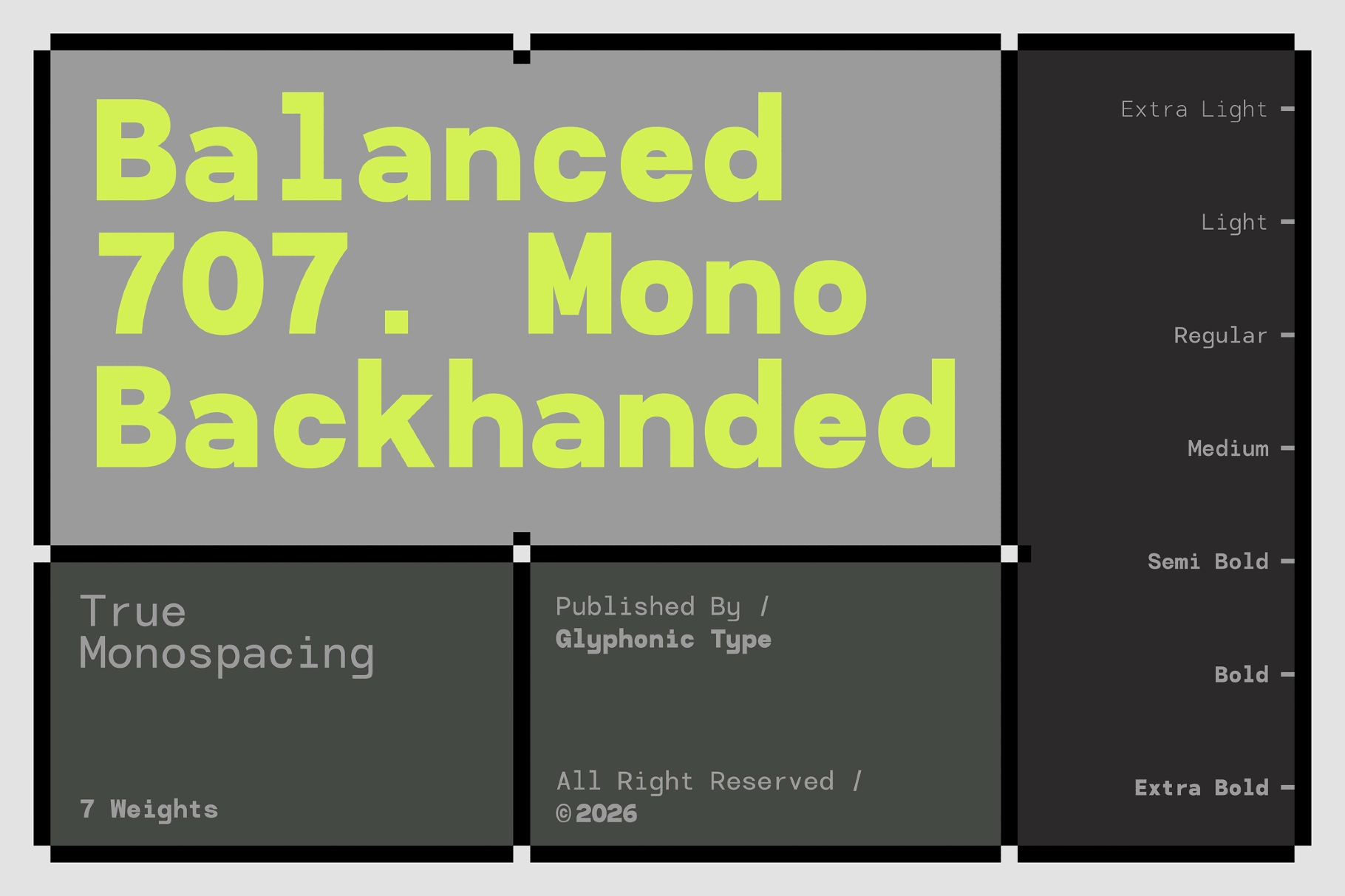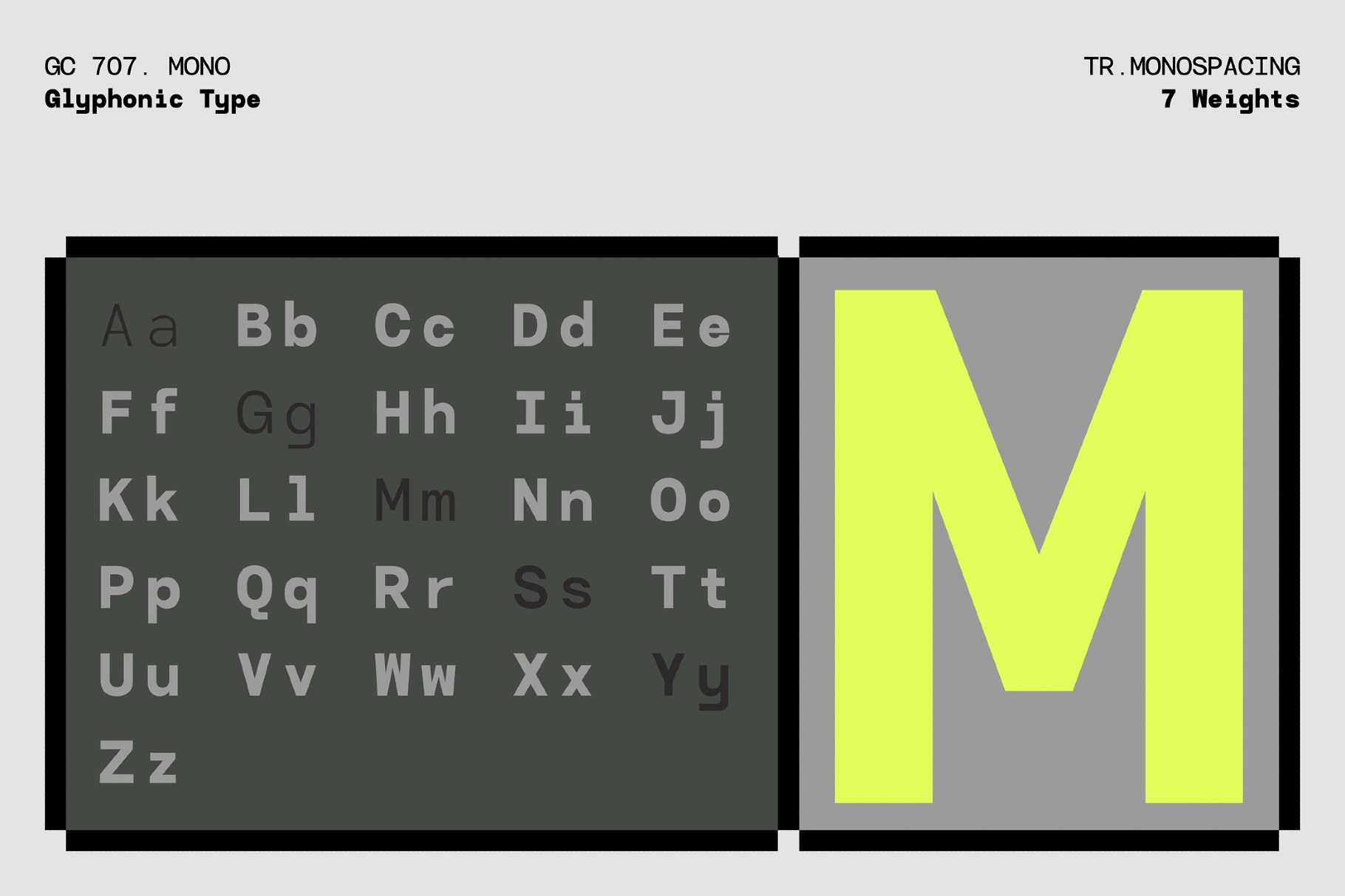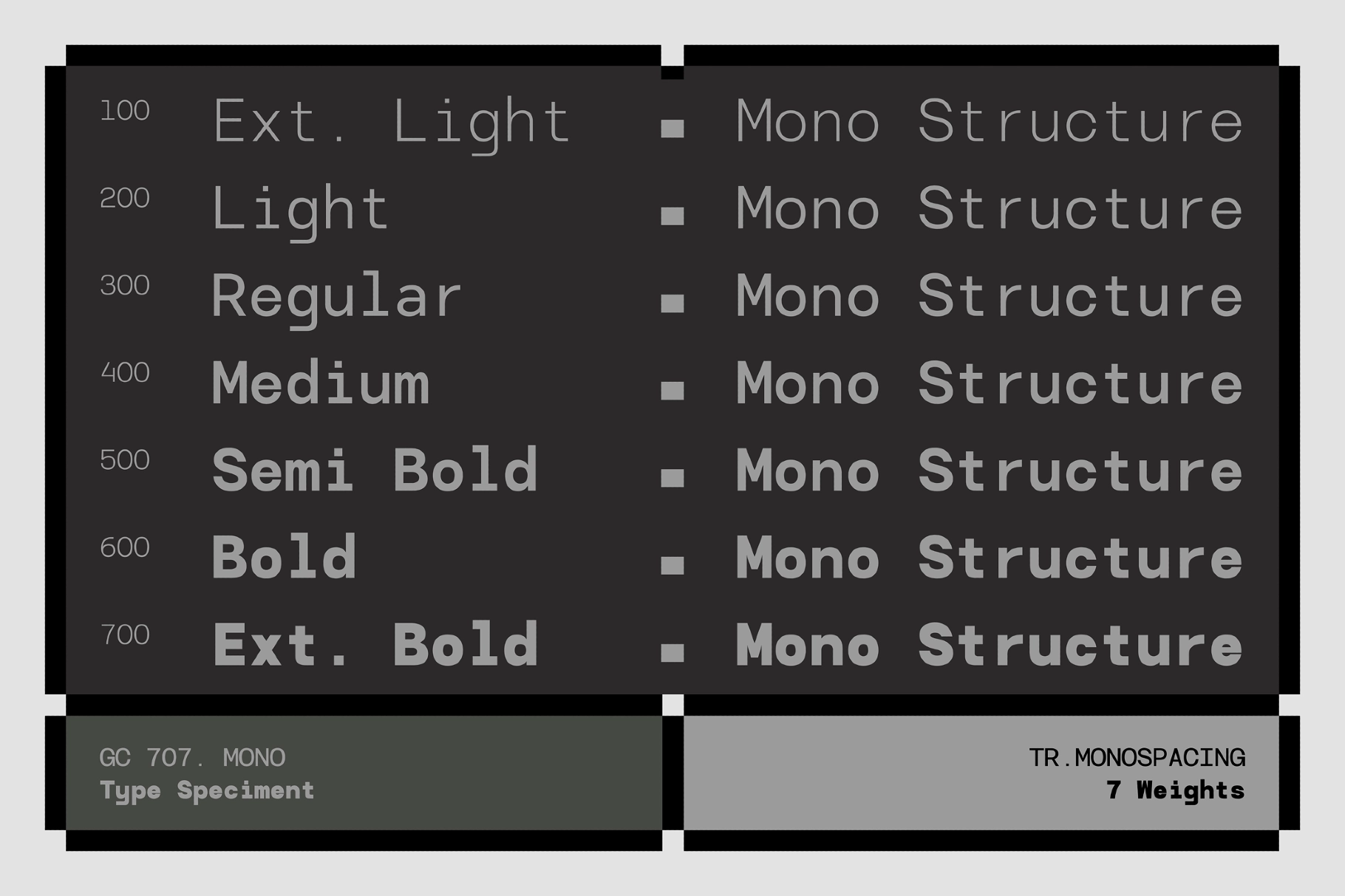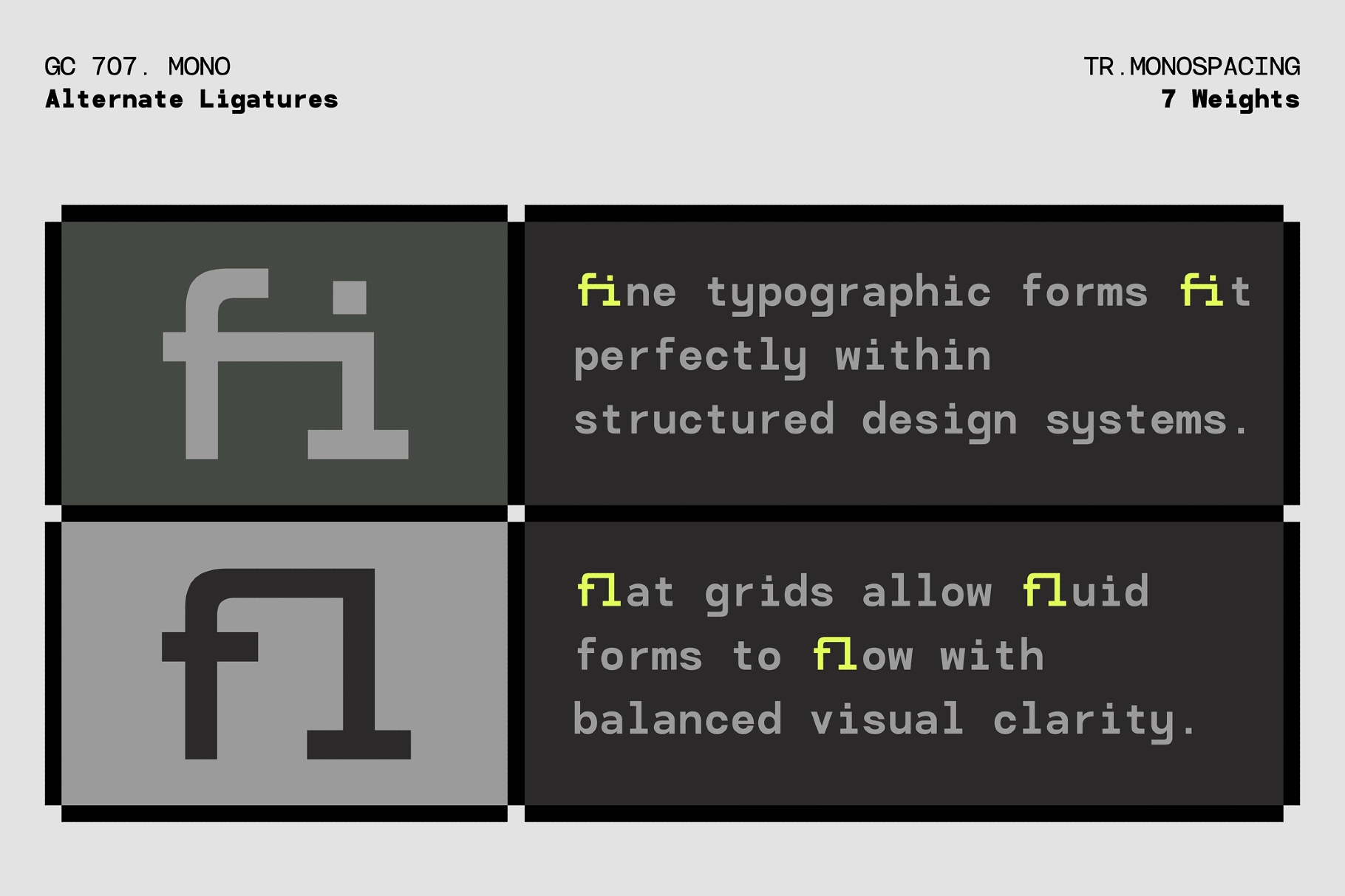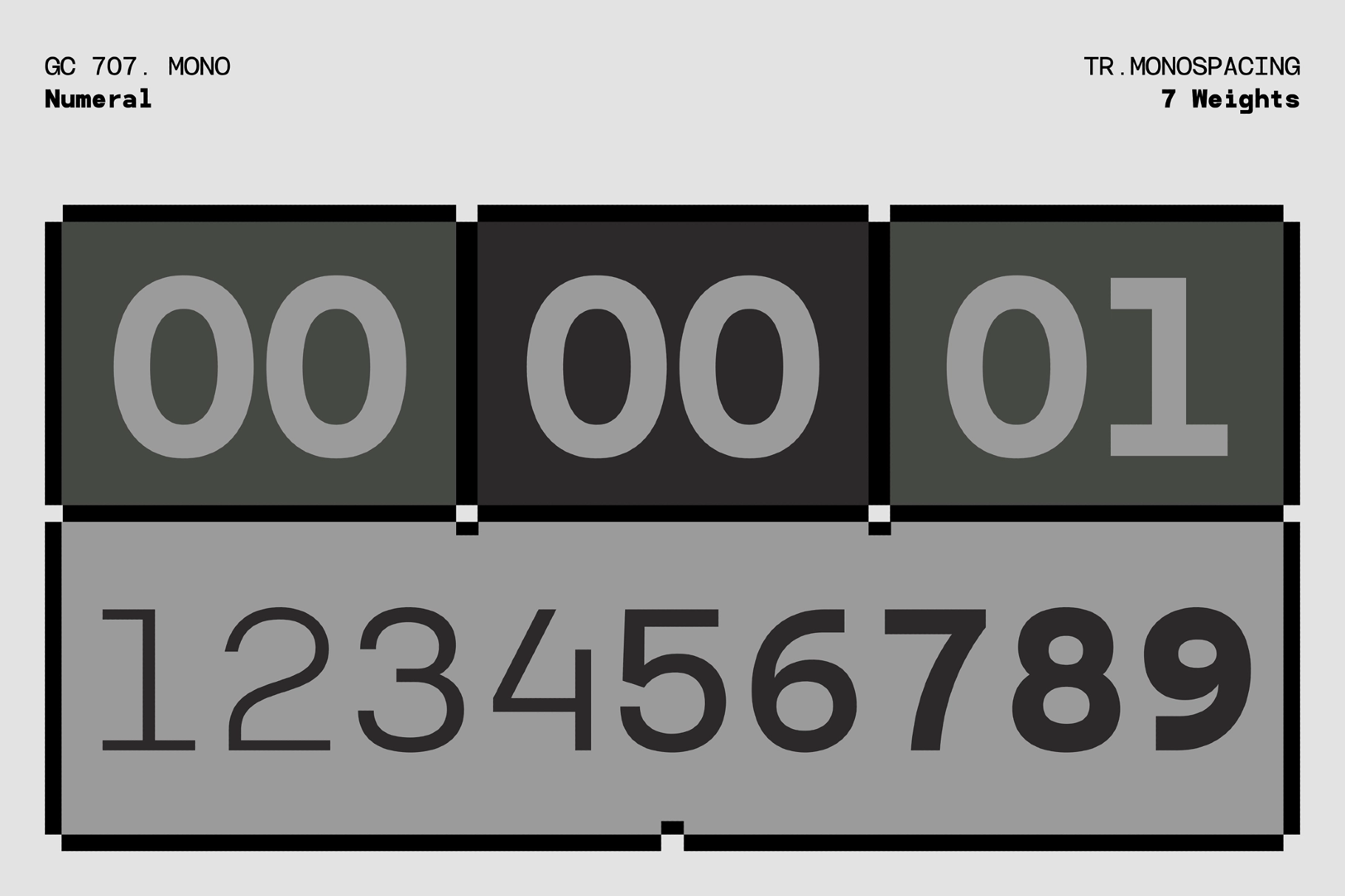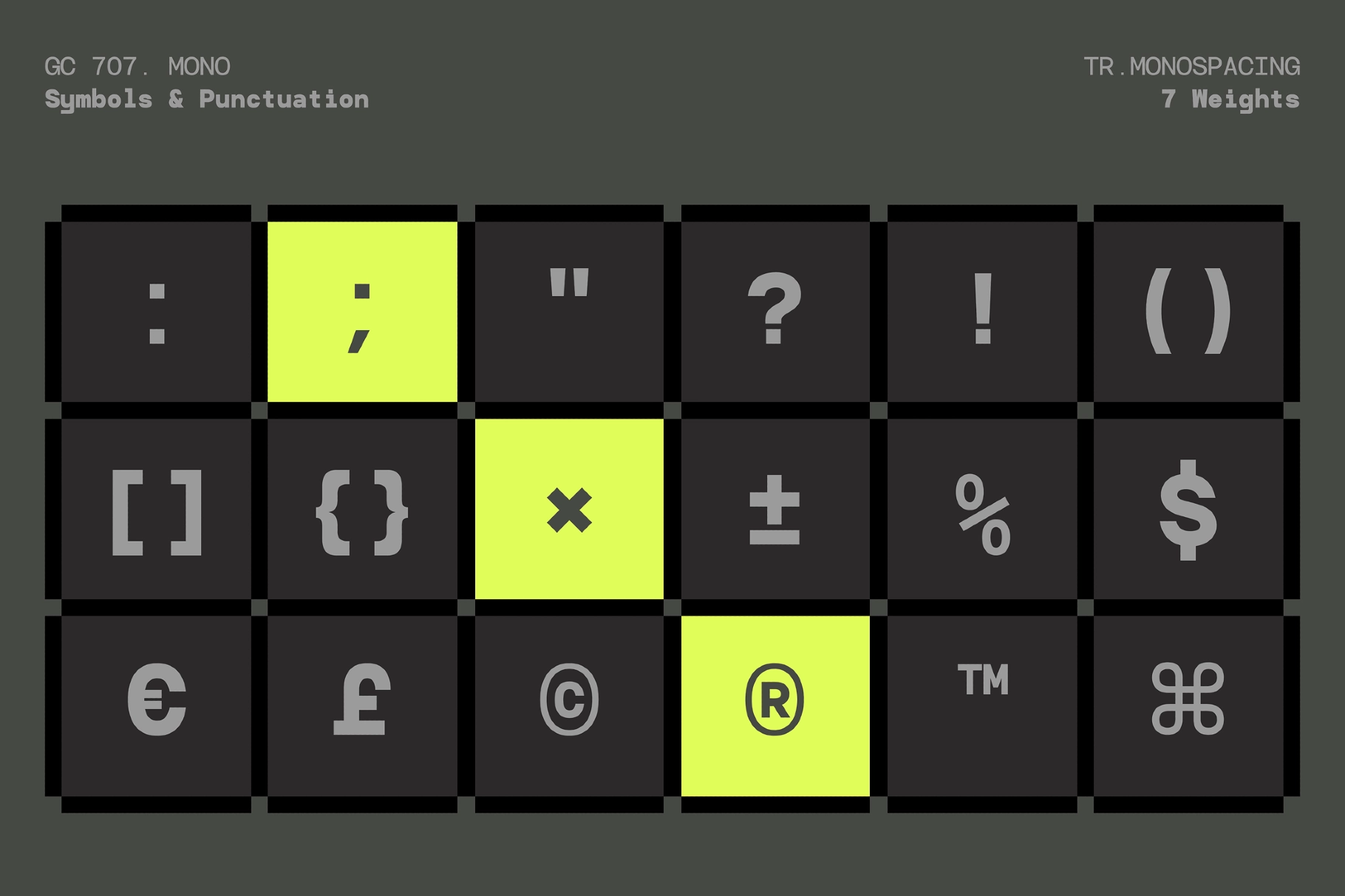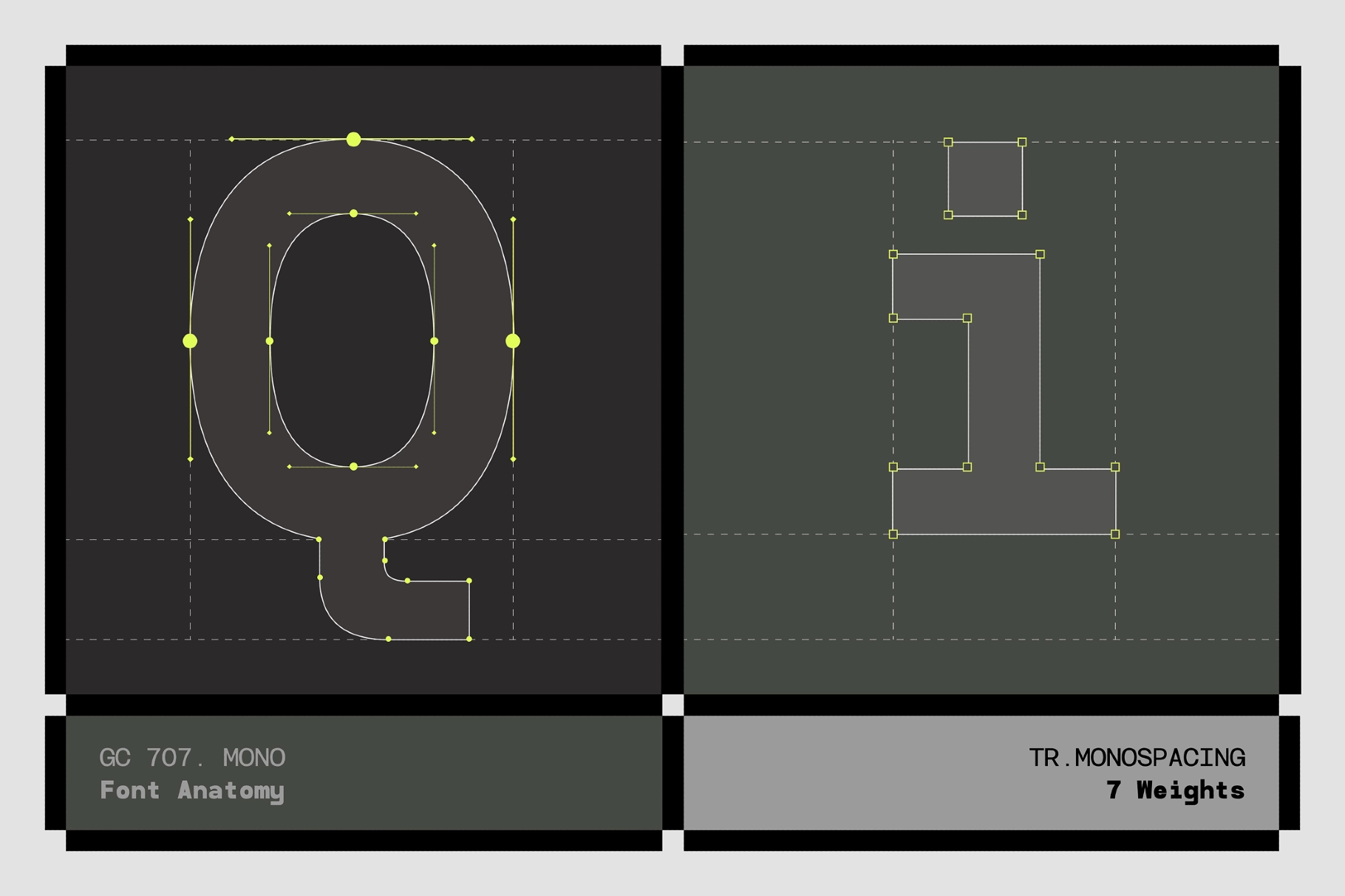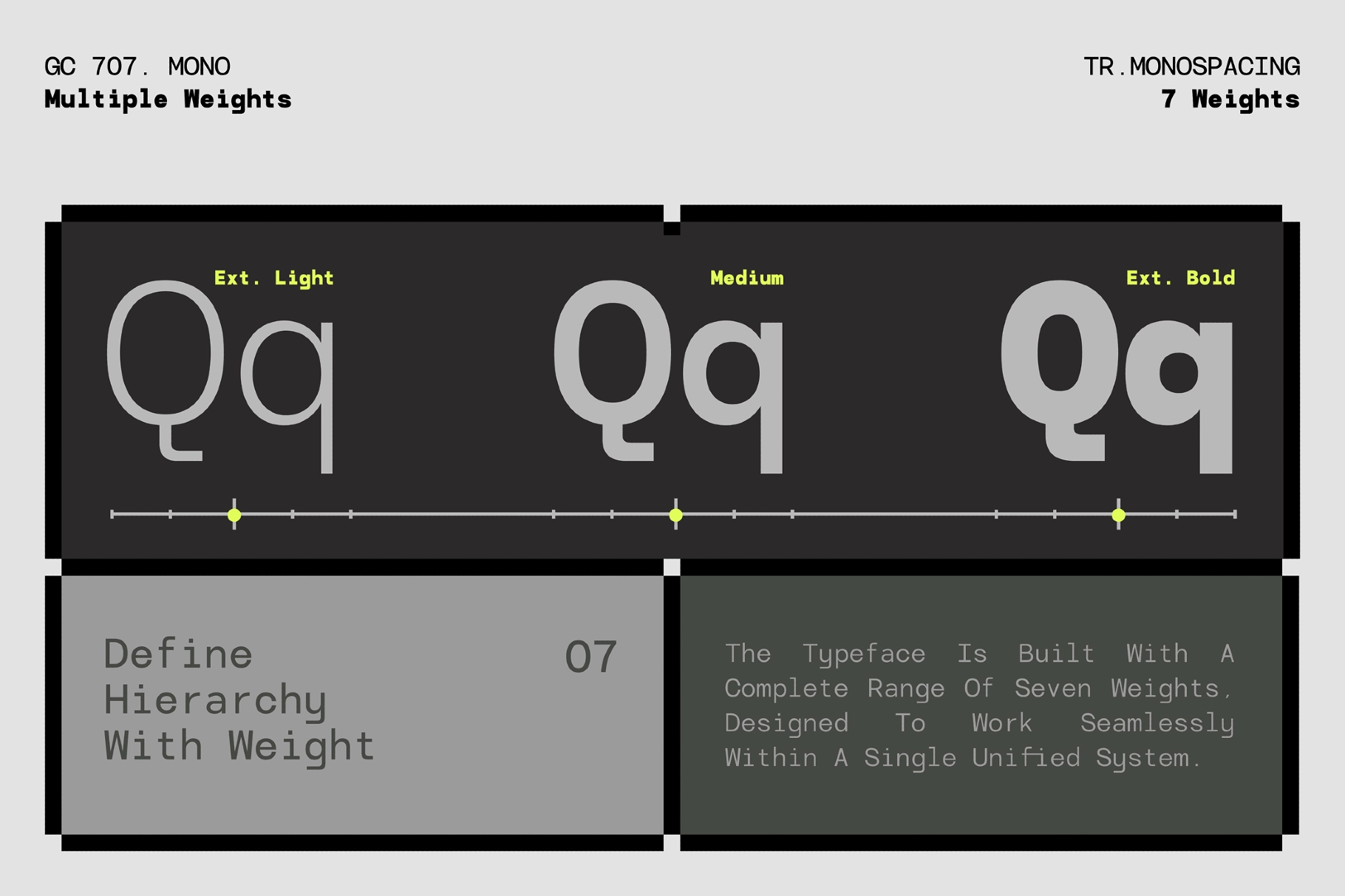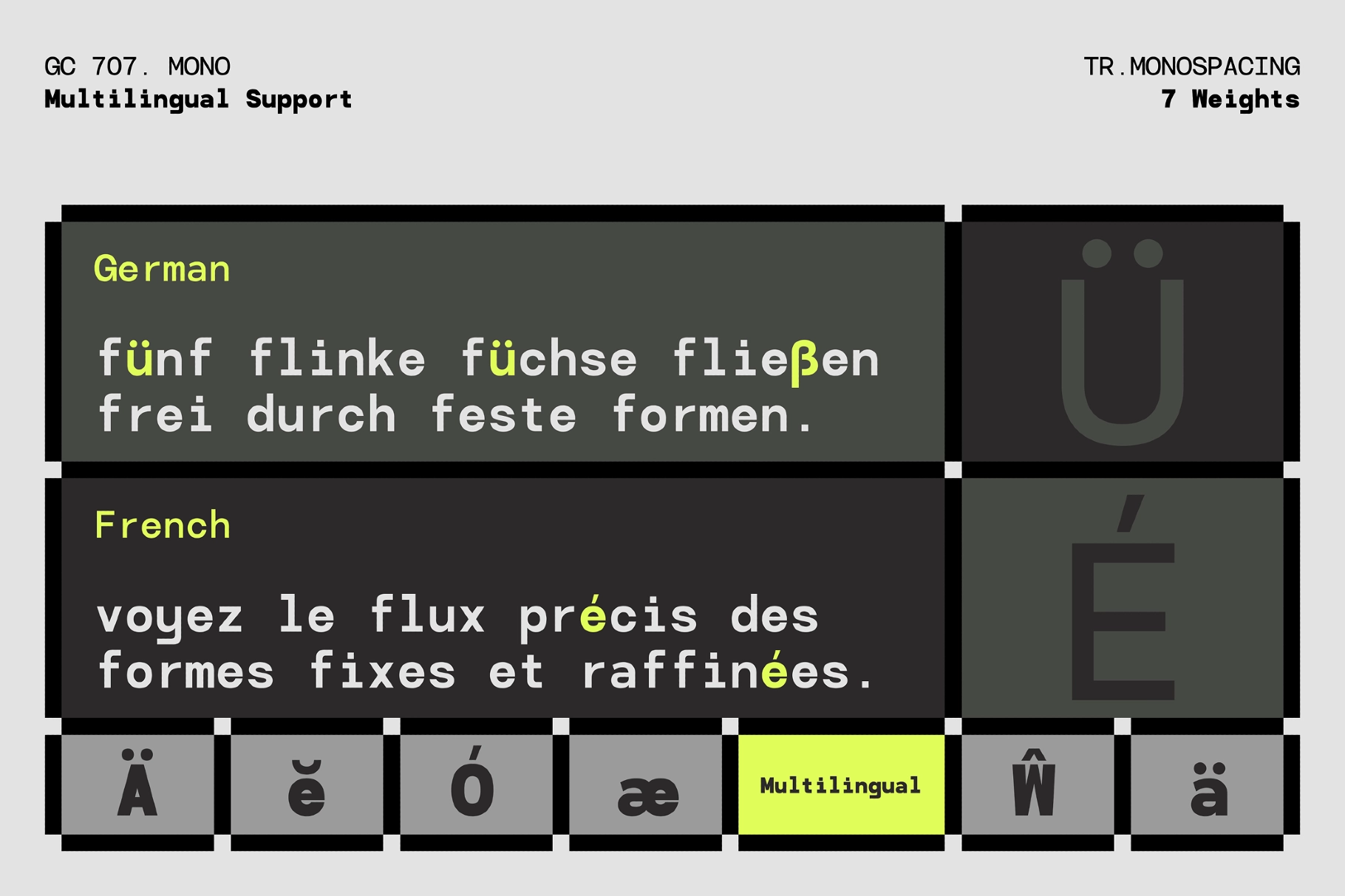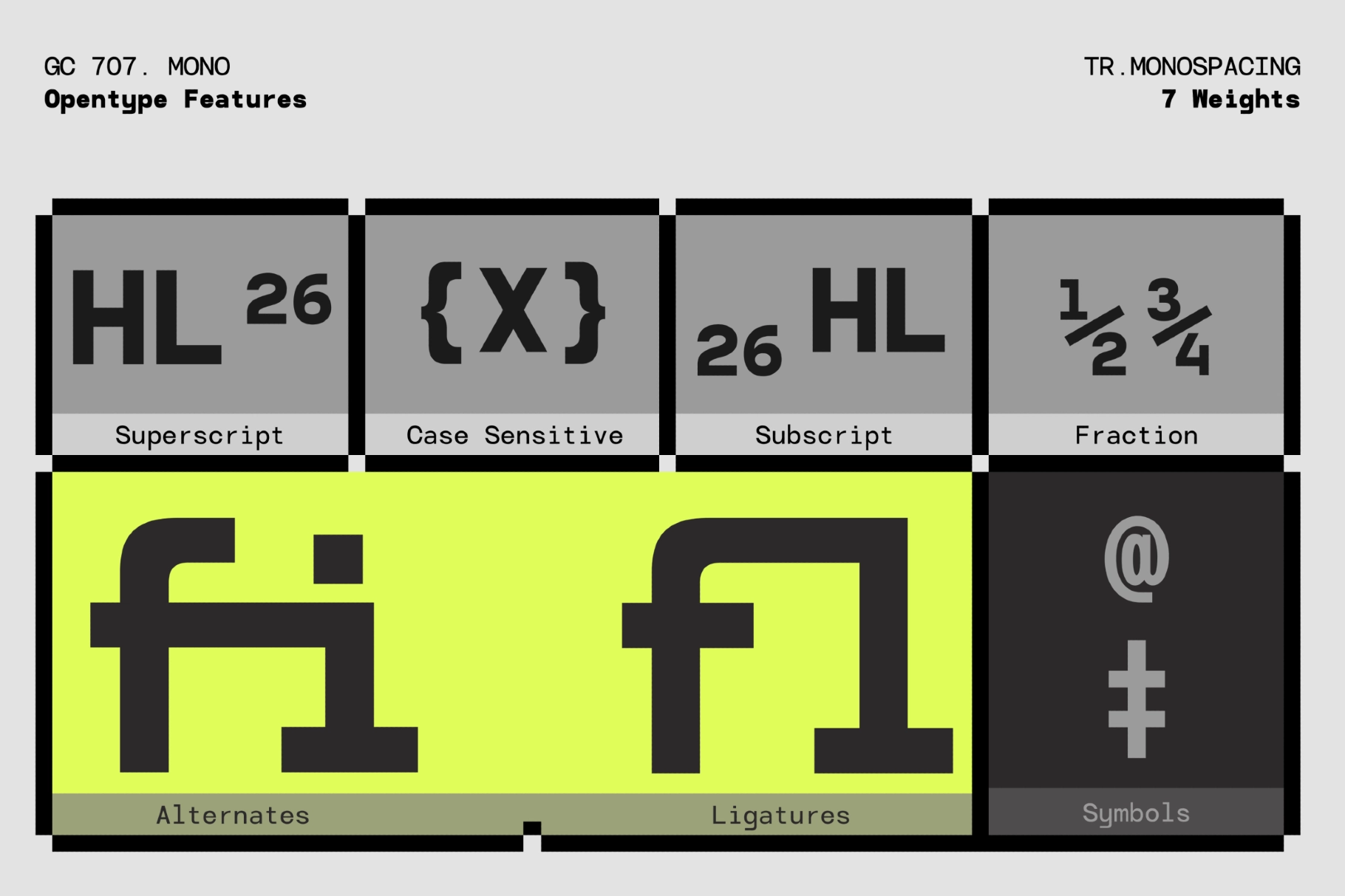
GC 707 Mono - Monospace Sans Serif Font Family
GC 707 Mono is a true-monospaced tech font built on a strict equal-width grid, where every character — from the blocky «M» to the hairline «i» — occupies the same horizontal slot. The construction is geometric sans with squared terminals and a high, consistent x-height, so columns of text and data tables lock into a clean vertical rhythm across all seven weights.
The family runs from Extra Light to Extra Bold, giving enough range to build typographic hierarchy inside a single interface without breaking the monospaced discipline. A full set of OpenType features — superscript, subscript, fractions, case-sensitive forms, fi/fl ligatures, and alternates — makes it genuinely pro-grade for data-heavy layouts, not just for the aesthetic. Use it for UI and app interfaces, developer tools, dashboards and data visualizations, tech branding, editorial layouts, terminal-inspired poster work, and coding environment themes.
- 7 styles: Extra Light, Light, Regular, Medium, Semi Bold, Bold, Extra Bold;
- uppercase & lowercase;
- numerals, punctuation & symbols;
- superscript, subscript, fractions, case-sensitive forms, ligatures & alternates;